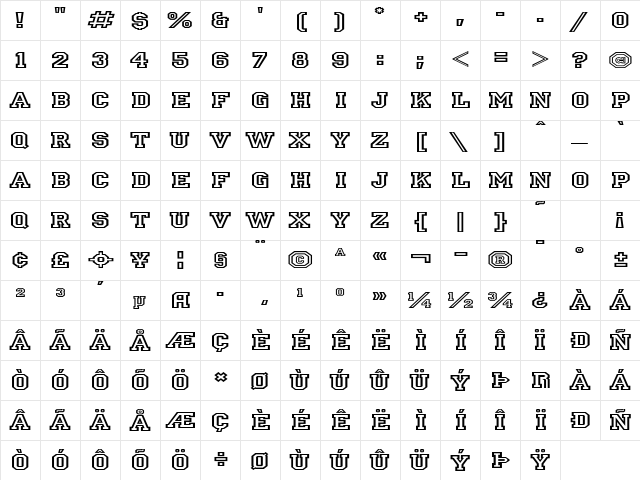
IvyLeagueExtendedOutline Regular Font Preview
IvyLeagueExtendedOutline Regular
Design Context for IvyLeagueExtendedOutline Typeface
IvyLeagueExtendedOutline brings ornamental detail and strong personality to headlines and identities, where visual impact matters more than quiet functionality.
Font Pairing: Pair with a clean neutral sans-serif for body copy to let IvyLeagueExtendedOutline's character lead without overwhelming the composition.
Pro Tip: Use IvyLeagueExtendedOutline exclusively at display sizes — it was designed to be seen, not read at length. Let a neutral companion handle body copy.